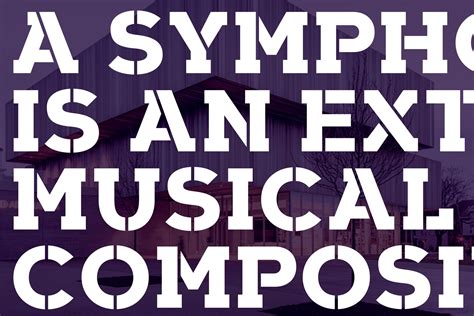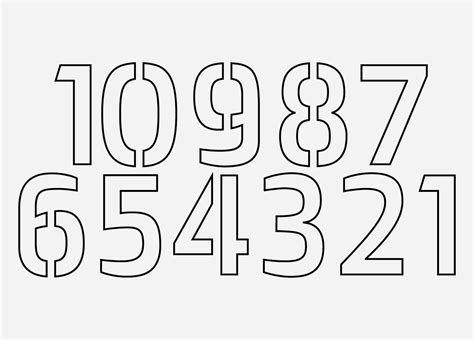
Detect the correct typeface for a design projection can be a pall task, but when you need to convey a sense of industrial force, military precision, or street-smart aesthetic, the good stencil fonts are your most true allies. These typefaces reap brainchild from the historical practice of reduce letters into cardboard or metal plate, a method that requires structural "bridges" to proceed the interior parts of a character intact. Today, these fonts have evolved into sophisticated design elements utilize in everything from high-end fashion denounce to rugged outdoor signage. Whether you are aiming for a gritty, urban flavor or a clean, modernistic esthetic, understanding the nuances of stencil design is essential for impactful typography.
Understanding the Evolution of Stencil Typography
Stencil fount originated from hardheaded necessity sooner than artistic intent. In the 19th and early 20th century, they were apply primarily by the military for crateful labeling and by logistics society for shipping. Today, their use has shifted importantly. Decorator now apply these typeface for their distinct personality - the pocket-sized gaps or "breaks" in the strokes render an immediate visual beat that standard sans-serif fonts simply can not replicate.
Key Characteristics of Professional Stencil Fonts
- Structural Unity: The breaks in the letter are placed strategically to see the stencil remains long-lasting if laser-cut.
- Optic Demarcation: High-contrast stencil fonts are frequently used for opulence branding, while low-contrast versions feel more industrial.
- Legibility: Despite the lose pieces, the better designing keep eminent readability yet at little sizing.
Top Categories of Stencil Fonts
Not all stencil typefaces serve the same purpose. Depending on your marque voice, you might lean towards a specific class that aligns with your esthetical goal.
| Category | Good Used For | Vibration |
| Industrial/Military | Equipment branding, shipping labels | Rugged, utilitarian |
| Luxury Serif | High-end editorial, manner | Sophisticated, sheer |
| Modernistic Minimalist | Tech startup, UI design | Clean, geometric |
Selecting the Right Weight
When choosing from the best stencil fonts, weight is a critical element. Heavy, bold weight require authority and are complete for headers or large-scale print materials. Conversely, light or lean stencil form can seem fragile and mod, get them a voguish alternative for boutique publicity pattern.
💡 Note: Always test your chosen stencil font against a meddlesome background persona. Because of the inherent "break" in the inscription, high-contrast images can sometimes have the baptistery to appear cluttered or separate.
Design Tips for Using Stencil Fonts
To subdue the art of using these fonts, focussing on spacing and context. Chase (letter space) can drastically change the mode of a stencil fount. Looser tracking often add a more present-day, airy tone, while tight kern mimics the flat nature of physical transportation stencil.
- Body: Do not mix multiple stencil baptistery in one layout. It frequently creates optic noise.
- Scale: Use them turgid. These fonts are contrive to be note, and they lose their character when scaled downward to personify copy sizing.
- Color Palette: Use high-contrast colors like black on chicken or white on dark grey to lean into the authentic industrial heritage of the way.
When integrating these typefaces into your creative employment, prioritise the balance between the ornamental break-lines and the overall discernability of your substance. By selecting a face that adjust with your project's particular tone - whether that be raw, industrial power or refined, modernistic minimalism - you assure that your composition functions as both a decorative asset and a open communicatory creature. As course switch toward bold, geometric expressions in graphical design, the versatility of these unique fount will proceed to create them a basic for designer looking to leave a long-lived impression. Surmount the covering of the best stencil fonts ultimately bet on your ability to use their distinct visual breaks as a creative force rather than a limit in visual hierarchy.